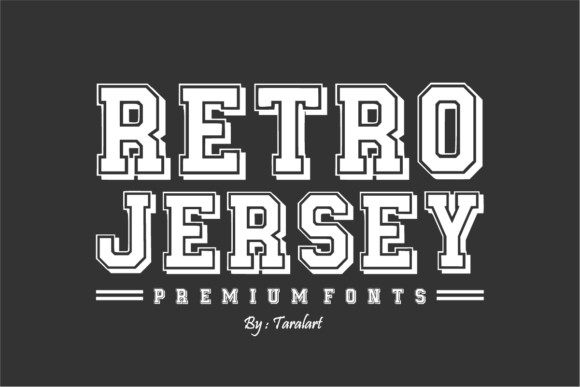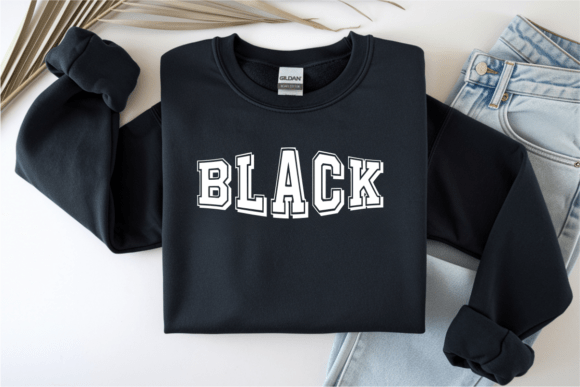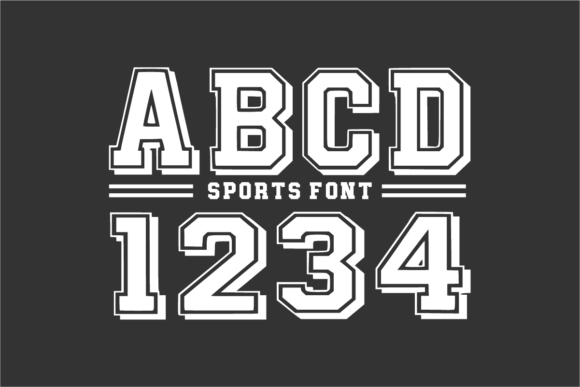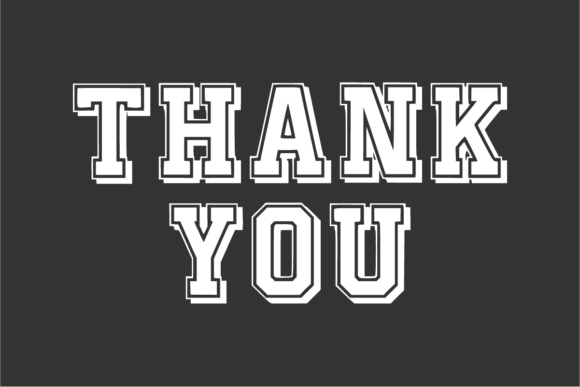
Athletic Jersey Font: Elevate Your Designs with a Championship Feel
Step into the world of bold design with Athletic Jersey, a premium sports display font that embodies the spirit of classic varsity and collegiate lettering. Inspired by the energetic and confident aesthetic of athletic wear, this font is perfect for designers and crafters looking to create stunning sports branding, team logos, apparel, posters, and bold typography layouts.
Unleash the Power of Athletic Jersey
Athletic Jersey is more than just a font – it’s an experience. Every letter is carefully crafted to balance power and precision, featuring clean lines, sharp edges, and a classic outline style that captures the authentic look of sports uniforms. The result is a font that exudes confidence, energy, and a winning attitude.
Key Features of Athletic Jersey
- Classic Varsity Aesthetic: Athletic Jersey is designed to evoke the nostalgia of classic varsity and collegiate lettering, making it perfect for sports branding and team logos.
- Clean Lines and Sharp Edges: The font features clean lines and sharp edges, giving it a crisp and modern look that’s perfect for bold typography layouts.
- Multilingual Support: Athletic Jersey comes with multilingual support, making it a great choice for designers working on international projects.
- Versatile Weights: The font is available in versatile weights, allowing designers to create a range of effects, from bold and dramatic to subtle and elegant.
- Numbers, Punctuation, and Symbols: Athletic Jersey includes numbers, punctuation, and symbols, making it a complete solution for professional design projects.
Perfect for Sports Branding and Design
Athletic Jersey is the perfect font for designers working on sports branding and design projects. Whether you’re creating jersey numbers, team names, headlines, or motivational quotes, this font delivers a standout, championship feel that’s sure to impress. Combine uppercase letters for bold impact, or mix styles for a dynamic, layered effect.
Ideas for Using Athletic Jersey
- Sports Logos and Branding: Use Athletic Jersey to create bold and confident sports logos that capture the spirit of the game.
- Jersey Numbers and Names: Add a professional touch to jersey designs with Athletic Jersey’s clean and precise lettering.
- Posters and Flyers: Create eye-catching posters and flyers with Athletic Jersey’s bold and energetic typography.
- Apparel and Merchandise: Use Athletic Jersey to create stunning apparel and merchandise designs that showcase team spirit and style.
- Headlines and Typography Layouts: Add a touch of championship flair to headlines and typography layouts with Athletic Jersey’s versatile and dynamic lettering.
What Sets Athletic Jersey Apart
Athletic Jersey stands out from other fonts in its class due to its unique combination of style, versatility, and attention to detail. Here are just a few reasons why designers and crafters love Athletic Jersey:
- Authentic Varsity Look: Athletic Jersey captures the authentic look of varsity and collegiate lettering, making it perfect for sports branding and design.
- High-Quality Design: Every letter is carefully crafted to ensure a high-quality design that’s both precise and visually appealing.
- Easy to Use: Athletic Jersey is easy to use and comes with a range of features, including multilingual support and versatile weights.
Athletic Jersey is a premium sports display font that’s perfect for designers and crafters looking to create stunning sports branding, team logos, apparel, posters, and bold typography layouts. With its classic varsity aesthetic, clean lines, sharp edges, and versatile features, Athletic Jersey is the ultimate font for anyone looking to add a championship feel to their designs. Try Athletic Jersey today and elevate your designs to the next level!